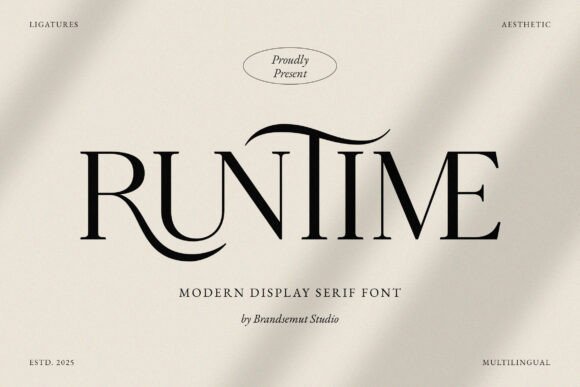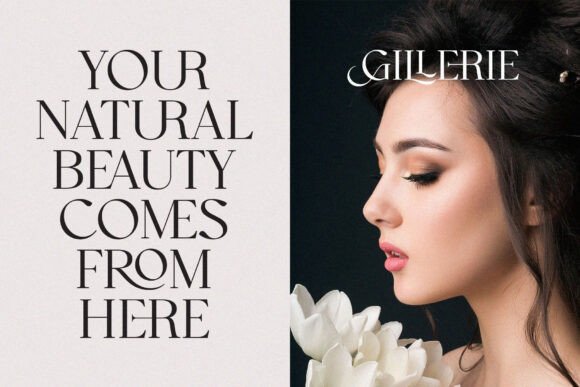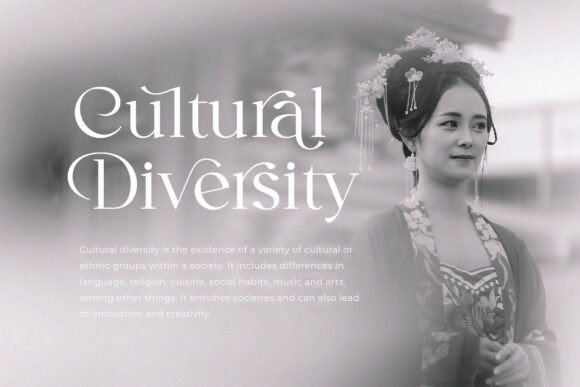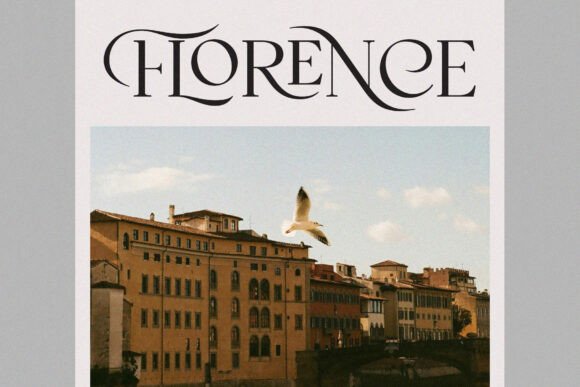
Runtime Font: Elegant Serif Typography for Modern Branding
About the Runtime Font
Unleash your creativity with Runtime Font, a versatile font perfect for a wide range of applications. Introducing Runtime Modern Display Serif Font.
Runtime is a modern and classy typeface, best used as a display for headings, logos, branding, magazines, product packaging, and invitations. Runtime comes with clean lines and smooth curves, giving any project an extra touch of class.
Runtime’s elegant, yet modern serif design excels in display applications such as headlines, logos, and short-form text on packaging or invitations. Its refined curves and clean lines lend themselves well to sophisticated branding projects requiring a touch of classicism. However, its limited x-height makes it unsuitable for extended body text or UI elements where readability is paramount.
For optimal visual harmony, pair Runtime with a clean sans-serif like Open Sans for body copy, creating a sophisticated contrast. Alternatively, a geometric sans-serif like Futura would provide a modern, balanced complement. For a touch of added texture, a script font with controlled flourishes could be incorporated for secondary elements, but should be used sparingly.
Runtime projects a personality that is both sophisticated and contemporary. It’s ideal for brands aiming for a timeless yet forward-thinking image—think luxury goods, high-end publications, or professional services. The font’s overall mood is confident and refined, without being overly austere.
Runtime Font Usage Examples
Runtime Font Example